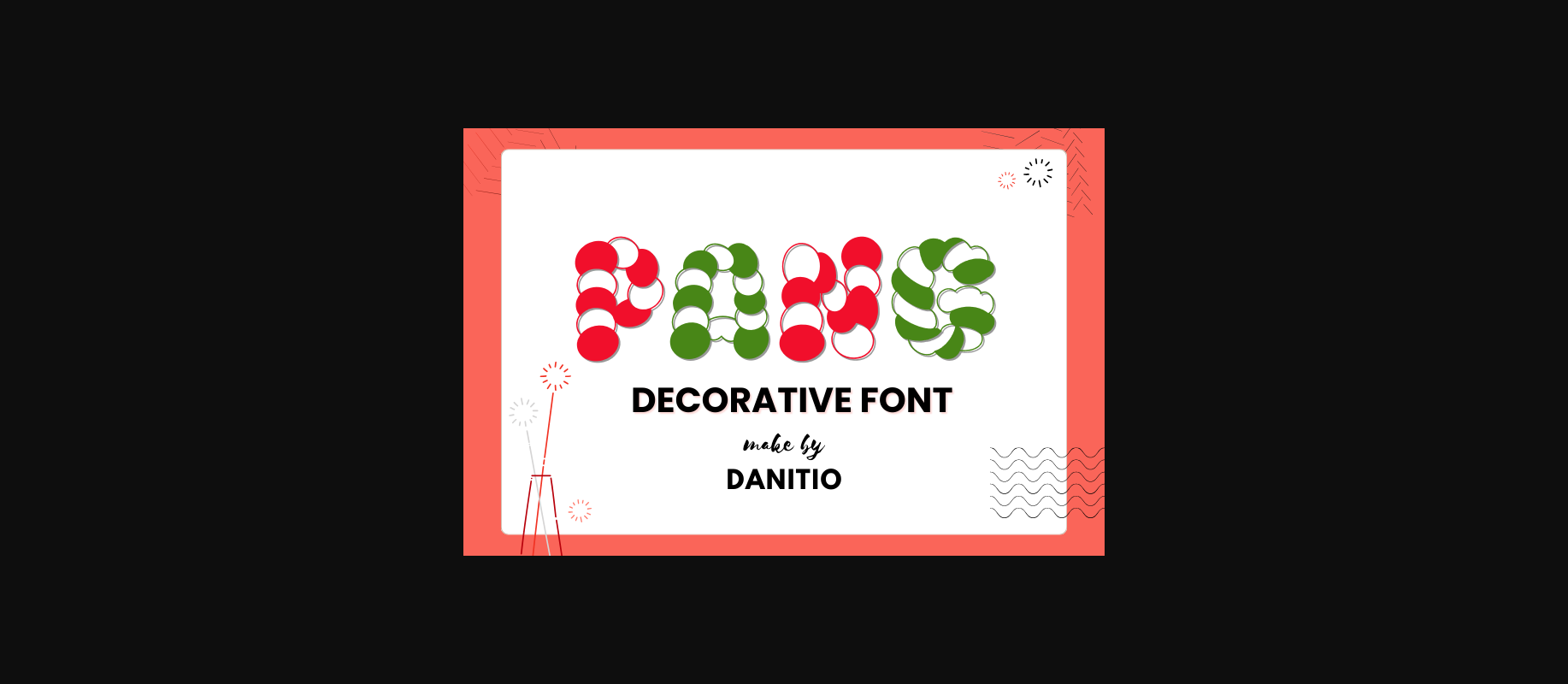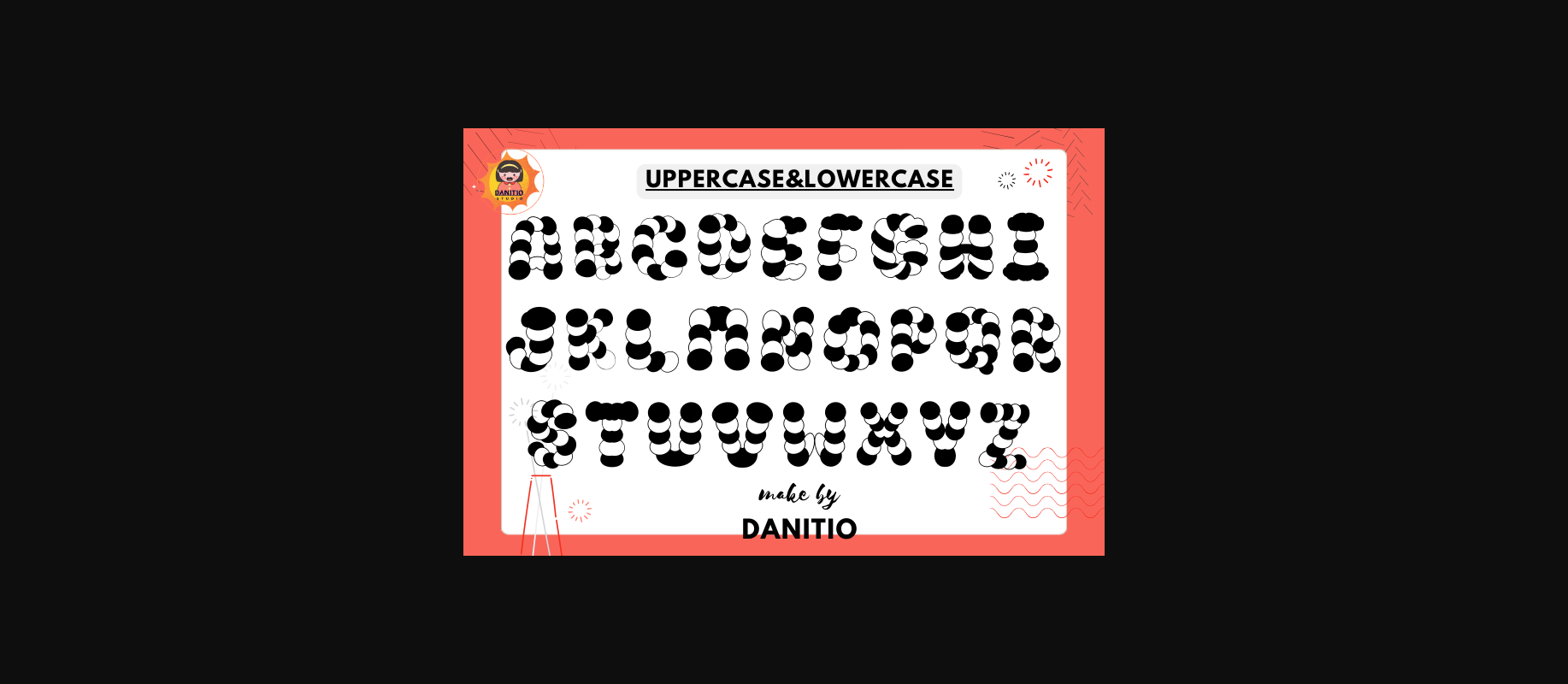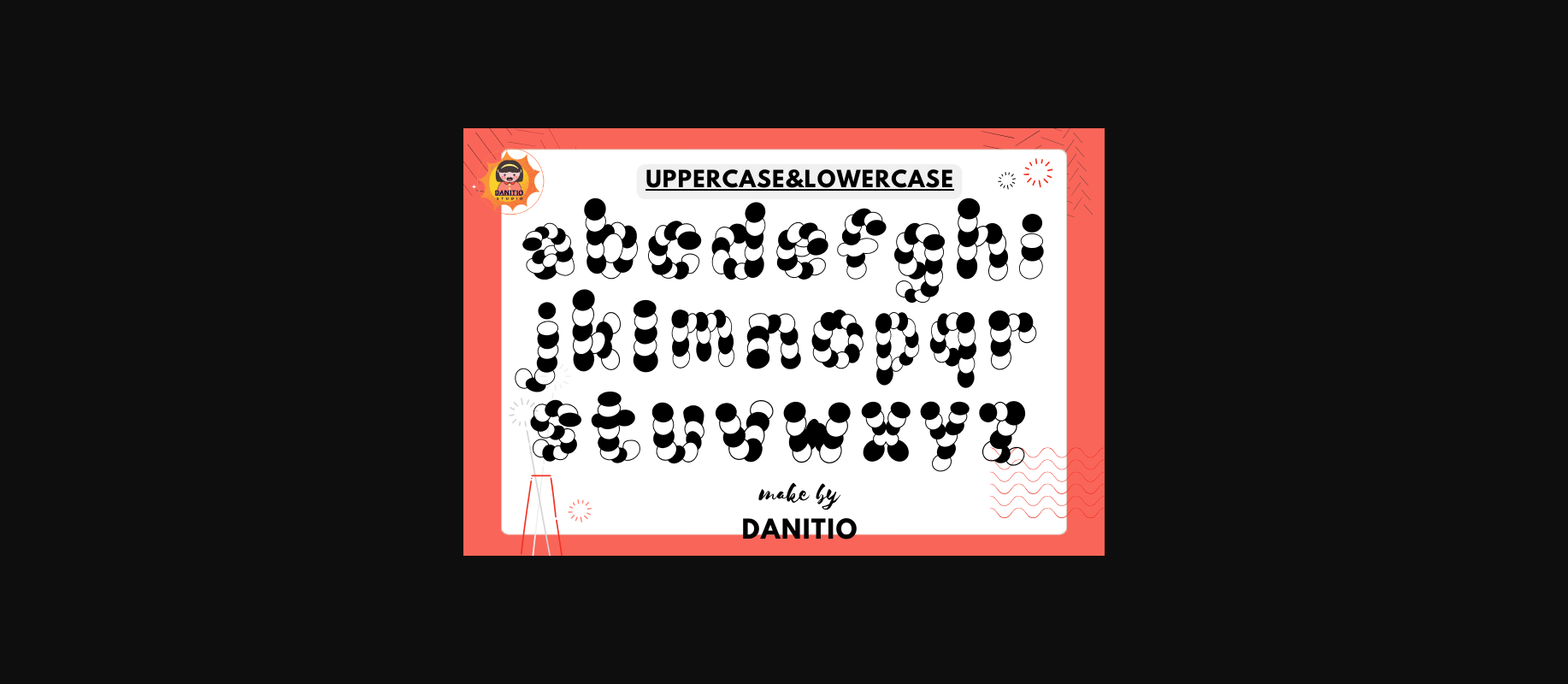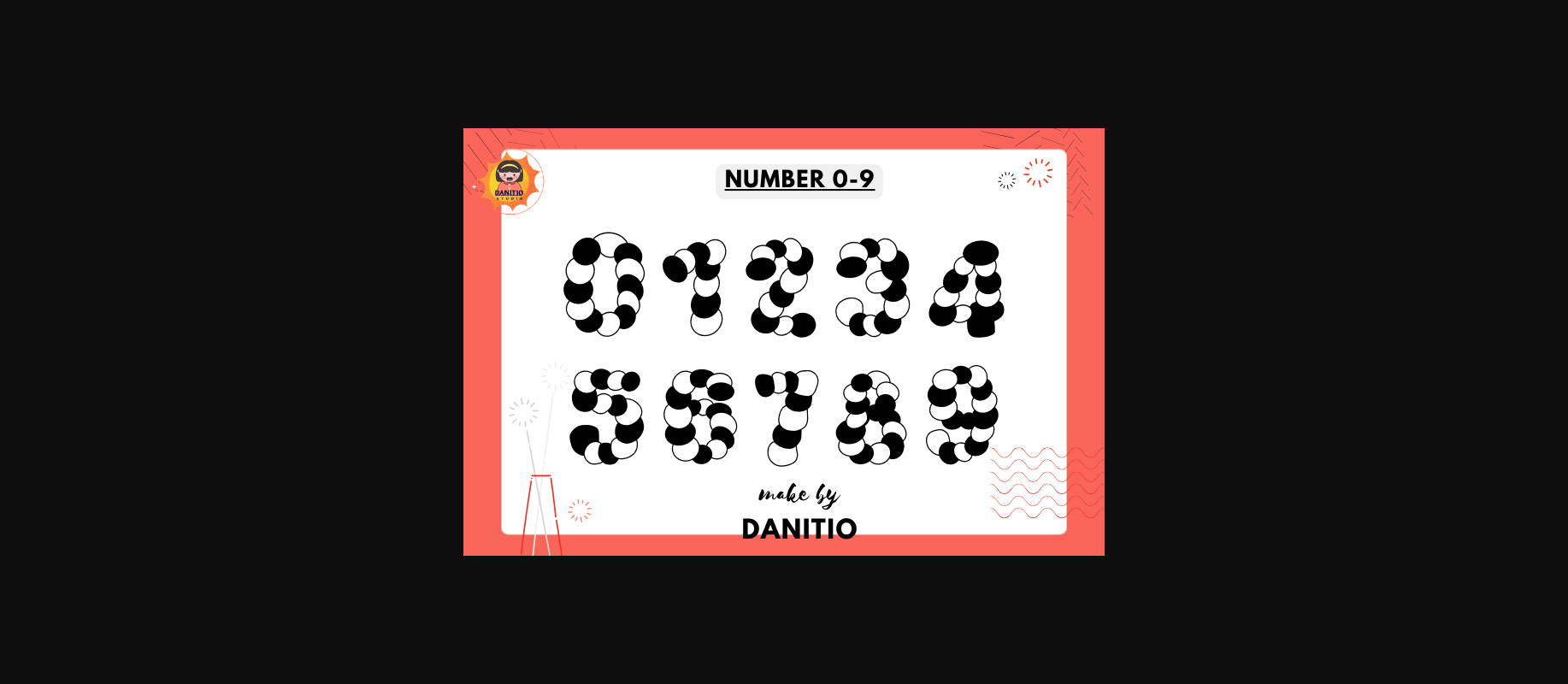
Pang Font
About Pang Font
Pang is a cute decorative font. Perfect for Christmas Let’s draw it out like it’s not candy’s feet. You can give your Christmas-themed project a fun and quirky atmosphere. Spread the joy of the season with this font. And let your creativity shine during this fun time of the year. Hope you enjoy my fonts.